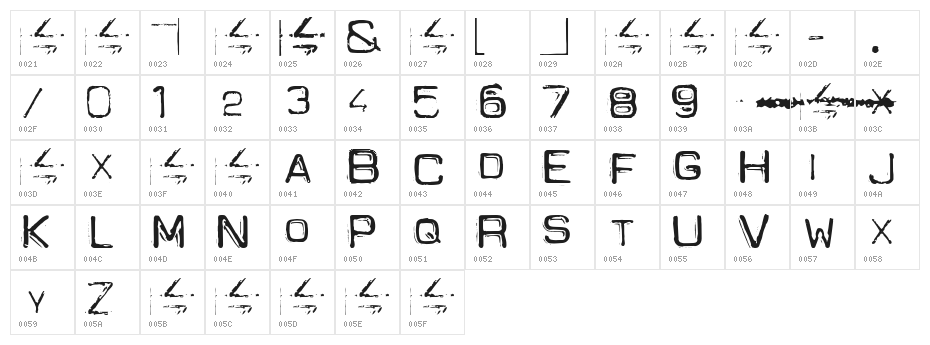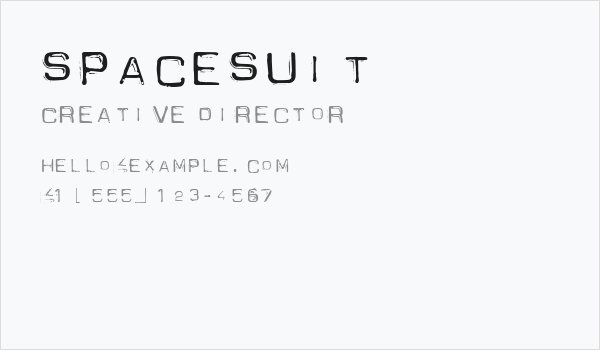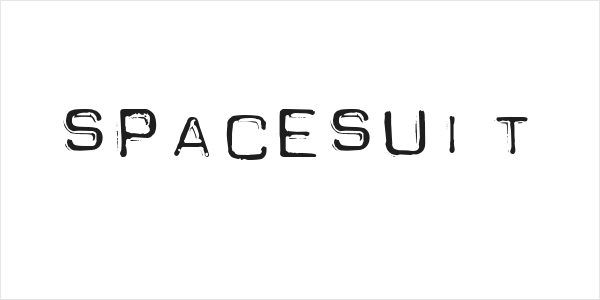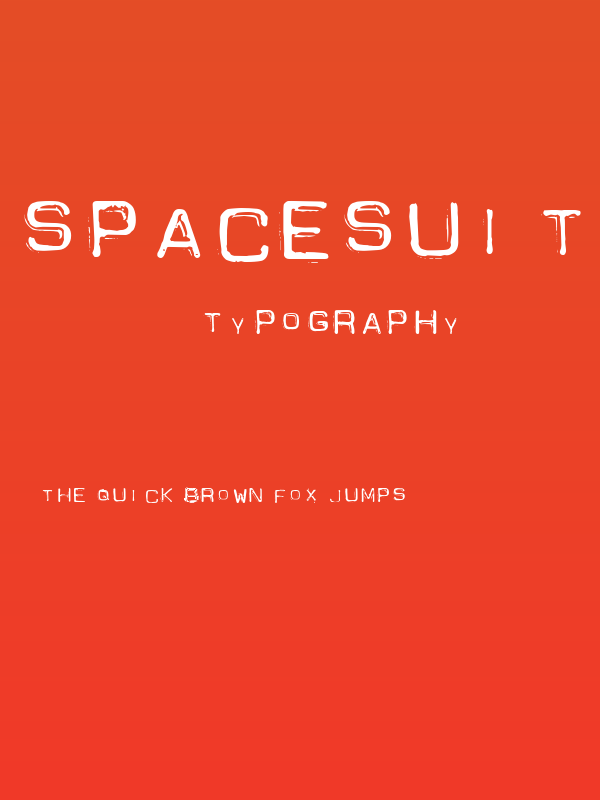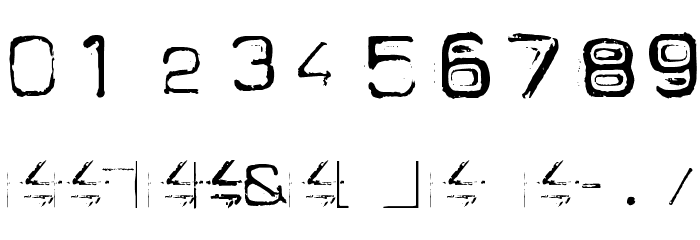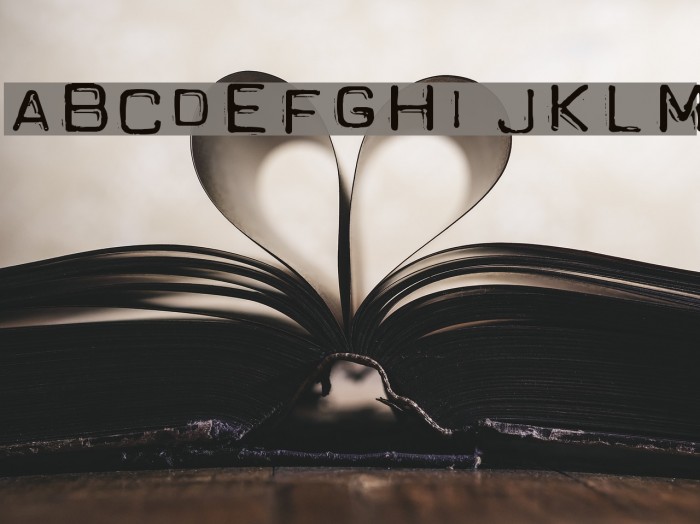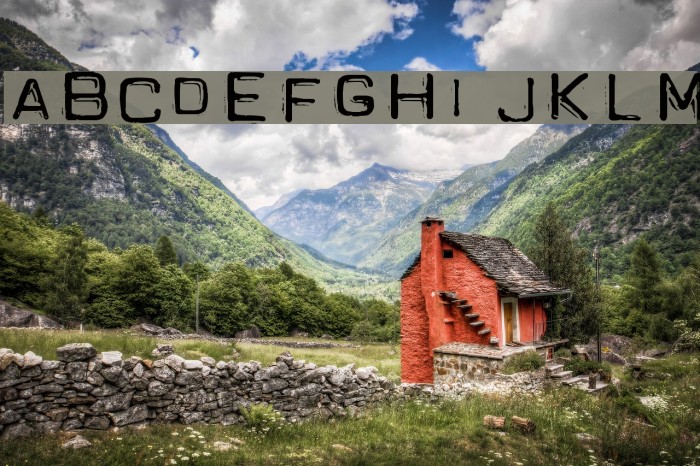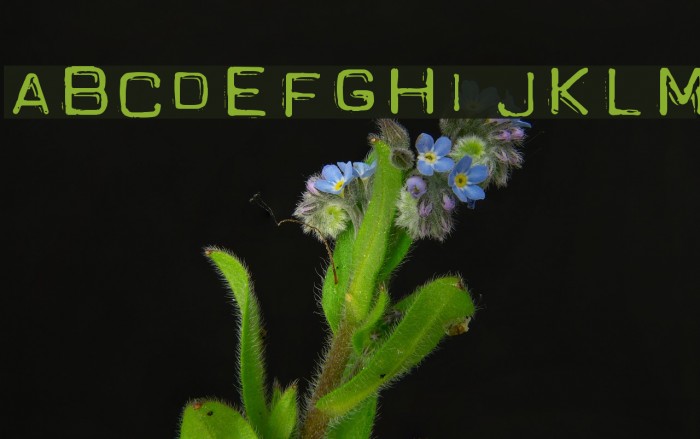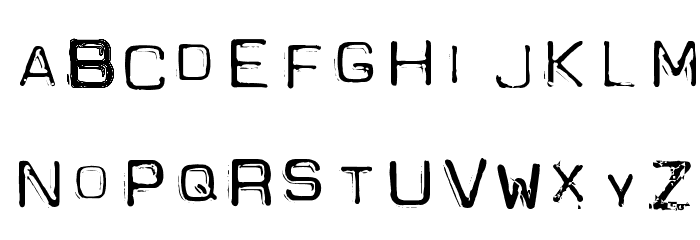
Spacesuit Font
Spacesuit Description
This font features a distressed, grunge aesthetic with a stencil-like appearance. The characters are bold and have a rough, textured look, giving them a worn and industrial feel. The uppercase and lowercase letters maintain a consistent style, with some letters showing slight variations in texture. The numerals and special characters follow the same design, ensuring uniformity across the font. The overall style is reminiscent of vintage industrial signage, making it ideal for projects that require a rugged, authentic look.
| Overall Style | Vintage, Industrial, Grunge |
| Proposed Projects | This font is perfect for projects such as album covers, posters, branding for industrial or vintage-themed businesses, and any design that requires a bold, gritty look. |